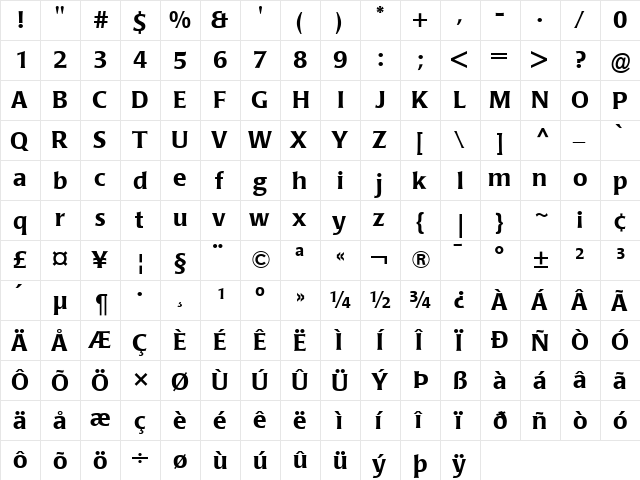
Poppl-Laudatio Bold Font Preview
Poppl-Laudatio Bold
Poppl-Laudatio Bold Font Details
Design Context for Poppl-Laudatio Typeface
Poppl-Laudatio offers clean, dependable letterforms without strong stylistic allegiance, making it a practical choice for designers who need flexibility. Its bold stroke weight gives it real presence on the page.
Pro Tip: Use Poppl-Laudatio in both headline and body roles to test its range before committing to a single application.